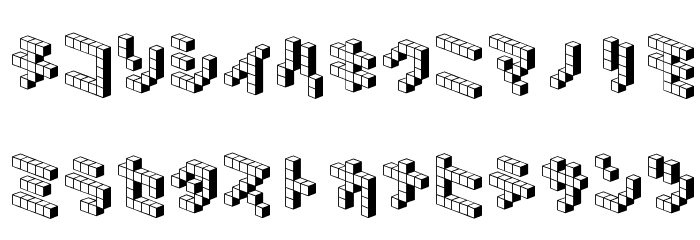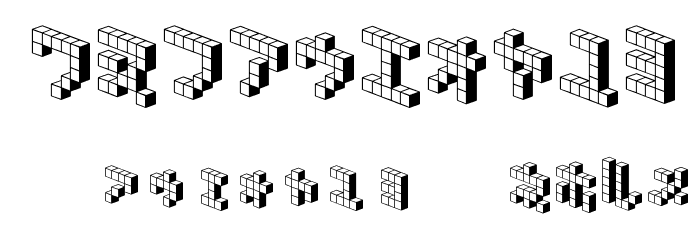
DemonCubicBlock NKP Shade Font
This font features a unique 3D block design, where each character is constructed from a series of connected cubes. The style is reminiscent of pixel art, with a playful and geometric aesthetic. The letters and numbers are bold and eye-catching, making them ideal for creative and modern design projects. The shading on the cubes adds depth and dimension, enhancing the visual impact. This font is perfect for projects that require a futuristic or digital look, such as video game graphics, tech-themed posters, or innovative branding materials.
A 3D block-style font with a playful, geometric design.
- Proposed Projects: Ideal for video game graphics, tech-themed posters, and innovative branding.
- Category: Decorative/Display
- Contrast: High
- Use Case: Logos, Headlines